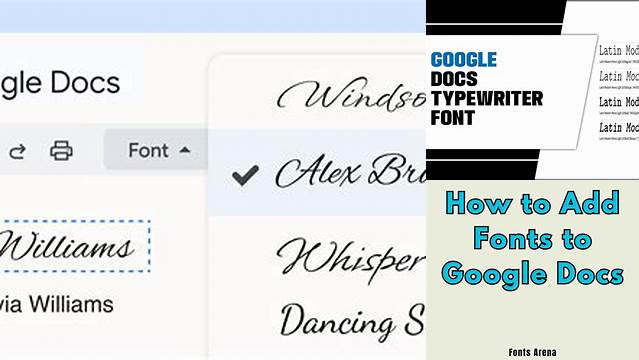
Free Fonts For Google Docs: The Ultimate Guide
Hey guys! Ever feel like your Google Docs are looking a little…blah? One of the easiest ways to spice things up is by using free fonts for Google Docs. Seriously, the right font can make a huge difference in how professional or creative your document looks. But with so many options out there, it can be a bit overwhelming, right? Don't worry, we've got you covered! This guide is all about helping you find and use the best free fonts to make your documents shine. Whether you're writing a resume, a presentation, or even a novel, choosing the perfect typeface is key. We'll explore everything from classic choices to hidden gems, and even how to add custom fonts. So, let's dive in and transform your Google Docs game! Using free fonts for Google Docs not only enhances the visual appeal of your documents but also helps convey the right tone and message. Imagine using a playful, whimsical font for a serious business proposal – it just wouldn't work! The right font aligns with your content, making it more engaging and readable. Plus, with the vast library of free options available, there's no need to stick with the default fonts that everyone else uses. You can really express your personal style and creativity. In the following sections, we'll delve deeper into the world of free fonts, exploring different categories, providing specific recommendations, and guiding you through the process of adding and managing fonts in Google Docs. Get ready to unleash your inner typographer!
1. Best Free Sans-Serif Fonts for Google Docs
Sans-serif fonts are your go-to for a clean and modern look. When it comes to free fonts for Google Docs, sans-serif options are incredibly versatile. Think about it: these fonts ditch the little “feet” (serifs) at the end of the strokes, giving them a minimalist vibe that's perfect for everything from headings to body text. But let's be real, not all sans-serif fonts are created equal. Some are super legible and professional, while others have a bit more personality. So, how do you choose the best one? Well, that's what we're here to break down! We'll be highlighting some top contenders that work wonders in Google Docs, whether you're crafting a sleek resume, a clear and concise report, or even a visually appealing presentation. We'll explore fonts that are known for their readability, versatility, and overall aesthetic appeal.
Choosing free fonts for Google Docs in the sans-serif category often boils down to finding the perfect balance between simplicity and character. A font that's too plain might look boring, while one that's too quirky might distract from your content. The key is to find a font that enhances your message without overshadowing it. We'll also discuss some popular pairings, because let's face it, using the same font for everything can get a little monotonous. Mixing and matching fonts can add visual interest and help differentiate headings from body text. So, get ready to discover some amazing sans-serif options that will take your Google Docs to the next level!
2. Top Free Serif Fonts for Google Docs
Serif fonts, with their elegant serifs (those little strokes at the ends of letters), bring a touch of tradition and formality to your documents. When searching for free fonts for Google Docs, serifs can be an excellent choice for projects that require a sophisticated or classic feel. Think about using them for academic papers, formal letters, or even adding a touch of elegance to your blog posts. But let's be honest, the world of serif fonts can be a bit daunting. There are so many variations, from the timeless classics to more contemporary designs. So, how do you navigate this landscape and find the perfect serif font for your needs? That's where we come in! We'll be showcasing some of the best free serif fonts that work beautifully in Google Docs, helping you create documents that exude professionalism and style.
Exploring free fonts for Google Docs in the serif category is like stepping into a library of history and artistry. Each serif font has its own unique personality, shaped by centuries of typographic evolution. Some serifs are bold and assertive, while others are delicate and refined. The key is to choose a font that not only looks good but also complements the tone and content of your document. We'll also be discussing some tips for using serif fonts effectively, such as pairing them with sans-serif fonts for a balanced look, and avoiding overly decorative serifs that can hinder readability. So, get ready to discover the power of serif fonts and how they can elevate your Google Docs!
3. Creative and Unique Fonts for Google Docs Free
Feeling a little adventurous? Want to break away from the traditional and inject some personality into your Google Docs? Then you need to explore the world of creative and unique free fonts for Google Docs! These fonts are perfect for projects where you want to make a statement, whether it's designing eye-catching marketing materials, creating engaging presentations, or even just adding a touch of whimsy to your personal documents. But let's be real, using creative fonts can be a bit of a balancing act. You want something that stands out, but you also need to ensure readability and avoid overwhelming your audience. So, how do you find that sweet spot? Well, that's what we're here to help you with! We'll be showcasing some fantastic free fonts that are both creative and functional, giving your Google Docs a unique flair without sacrificing clarity.
When it comes to free fonts for Google Docs, the creative category offers a playground of possibilities. From handwritten styles to quirky display fonts, there's a font out there to match every mood and message. However, it's crucial to use these fonts strategically. A creative font might be perfect for a heading or a logo, but it might not be the best choice for large blocks of text. We'll be discussing some best practices for using creative fonts, such as limiting them to specific elements of your document and pairing them with more traditional fonts for a balanced look. So, get ready to unleash your creativity and discover some truly unique fonts that will make your Google Docs stand out from the crowd!
4. How to Add Fonts to Google Docs for Free
Okay, so you've found some amazing free fonts for Google Docs that you're dying to use. But now what? How do you actually get them into Google Docs so you can start creating your masterpiece? Don't worry, it's easier than you think! Google Docs has a built-in font library that's packed with tons of options, and adding new fonts is a breeze. But let's be honest, navigating the font selection process can sometimes feel a little confusing. Where do you find the option to add fonts? How do you browse through the available choices? And what if you want to add a custom font that's not in the Google Fonts library? That's what we're here to demystify! We'll walk you through the step-by-step process of adding fonts to Google Docs, whether you're choosing from the built-in library or uploading your own. Get ready to expand your typographic horizons!
Learning how to add free fonts for Google Docs is a game-changer. It opens up a world of possibilities for customizing your documents and expressing your unique style. The Google Docs font library is a treasure trove of options, and the ability to add custom fonts means you're not limited to what's already available. We'll be covering everything from browsing the font library to searching for specific fonts, and even how to add fonts from external sources. So, get ready to take control of your font choices and make your Google Docs truly your own!
5. Google Docs Font Pairing for Free
So, you've got a fantastic collection of free fonts for Google Docs, but how do you use them together? Font pairing is the art of combining different fonts to create a visually harmonious and effective design. Think of it like music – you wouldn't just play random notes, you'd arrange them in a way that sounds pleasing. The same goes for fonts! But let's be real, font pairing can feel a little intimidating at first. How do you know which fonts go well together? What are the rules and guidelines? And how do you avoid creating a typographic disaster? Don't worry, we're here to help you become a font pairing pro! We'll be sharing some tips and tricks for choosing fonts that complement each other, creating a cohesive and visually appealing look for your Google Docs.
14. Modern Free Fonts Google Docs
If you're aiming for a contemporary feel, free fonts for Google Docs categorized as modern are the way to go. These fonts often feature clean lines, geometric shapes, and a sleek, updated aesthetic. They're perfect for presentations, reports, and any document where you want to project a forward-thinking image. But let's be honest, the term